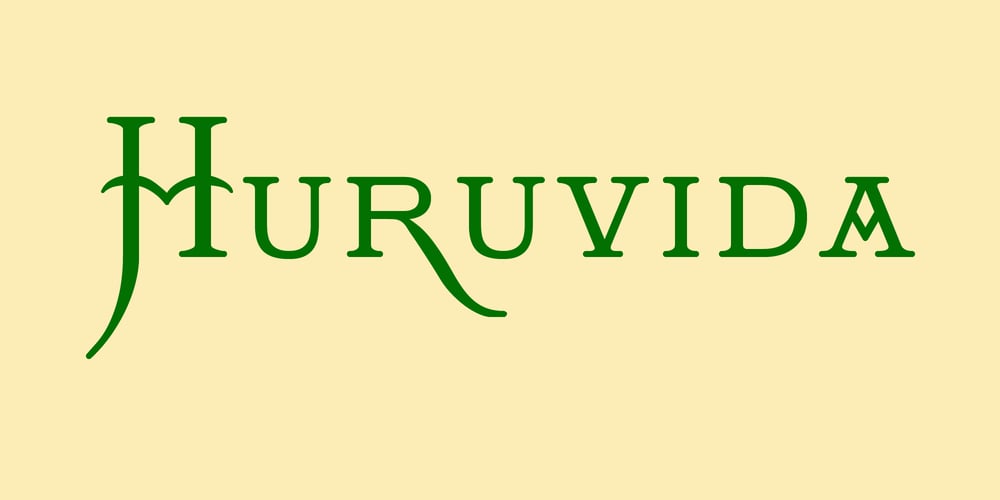
Huruvida Font Family was designed by Lars Törnqvist and published by Cercurius. Huruvida contains 1 styles and family package options. A decorative font with descending tails on the capital letters. The design is based on a popular typeface from the 1880s, mainly used for personal names on title-pages, advertisements and stationery. Today, you can use it e.g. on book and album covers, invitation cards, restaurant menus and concert programs to give a fin-de-siècle impression.